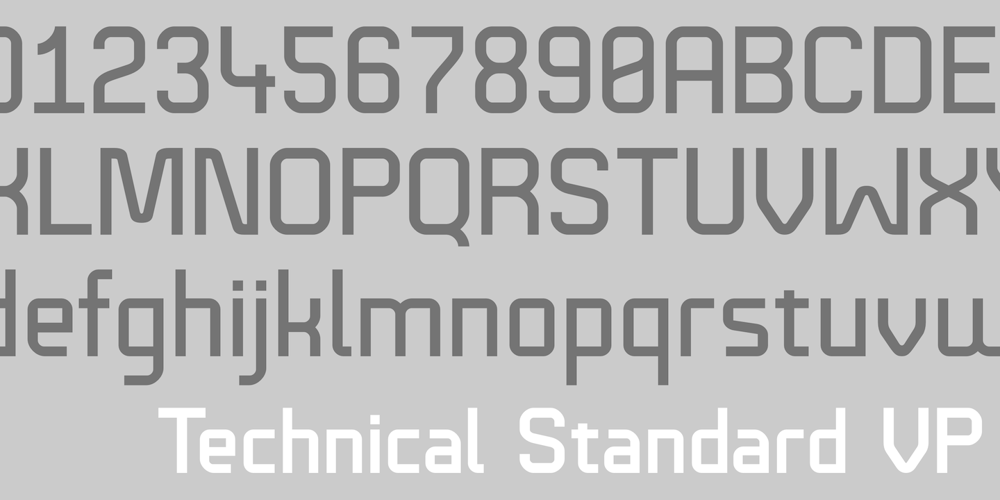
Technical Standard VP Font Family was designed by Val Kalinic and published by VP Type. Technical Standard VP contains 10 styles and family package options. The initial inspiration for Technical Standard VP came from examining precisely machined labels on tools from cameras to cars, which need to be legible at all sizes. The streamlined look such processes achieve was reinterpreted and refined – the resulting font at the same time being robust and stylish, universal and unique, with its ten distinct styles offering great versatility.With 1120 glyphs in each style, it guarantees full support for all Latin languages.